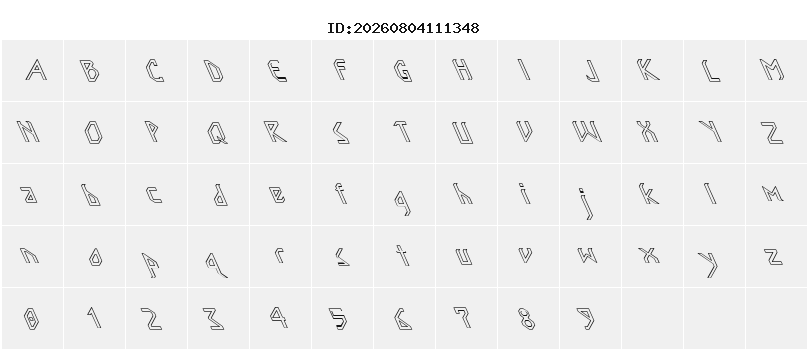
Nordic Leftie Hollow Preview
• Font Name: Nordic Leftie Hollow
• Full Font Name: Nordic Leftie Hollow
About Nordic Leftie Hollow.ttf
Nordic Leftie Hollow.ttf is a modern, elegant sans-serif font designed for ultimate readability and visual harmony. Perfect for branding, headlines, web design, and print materials.